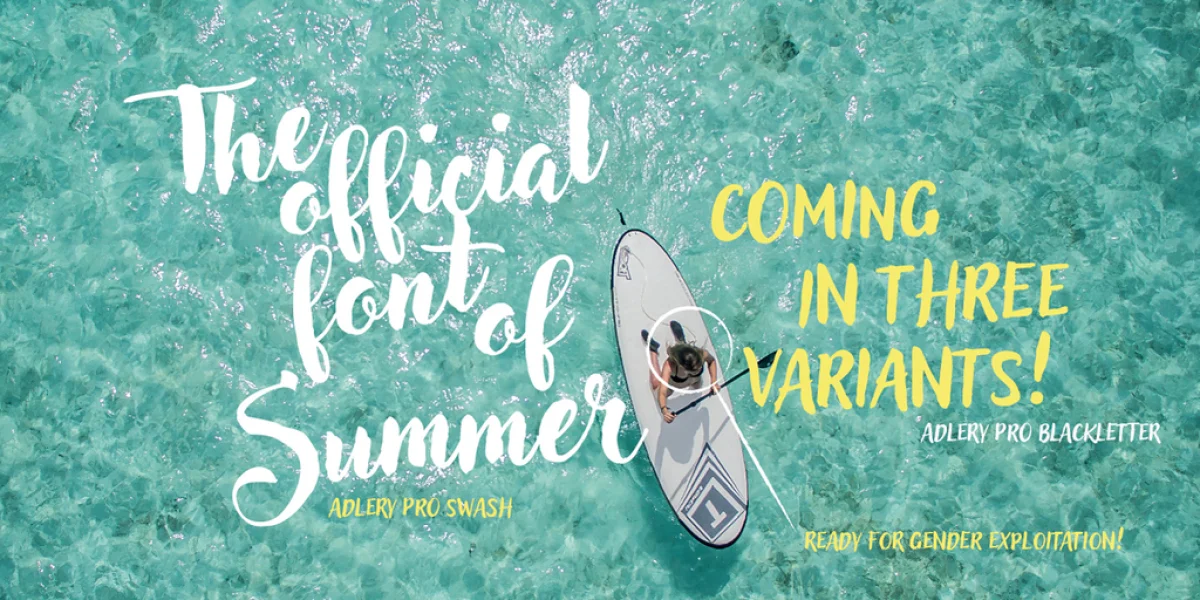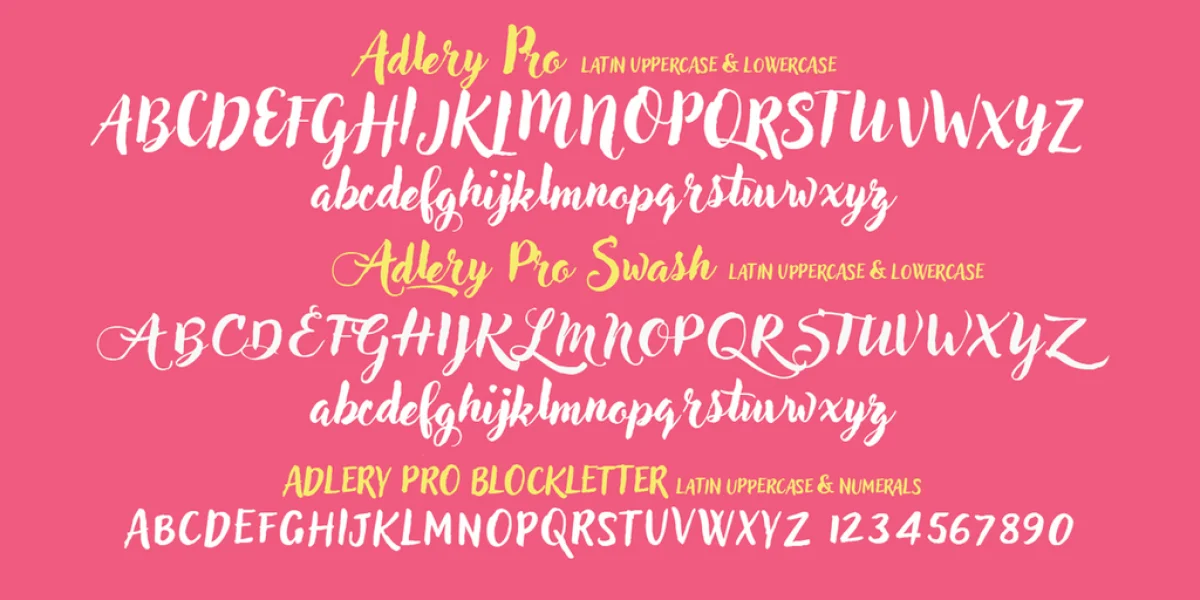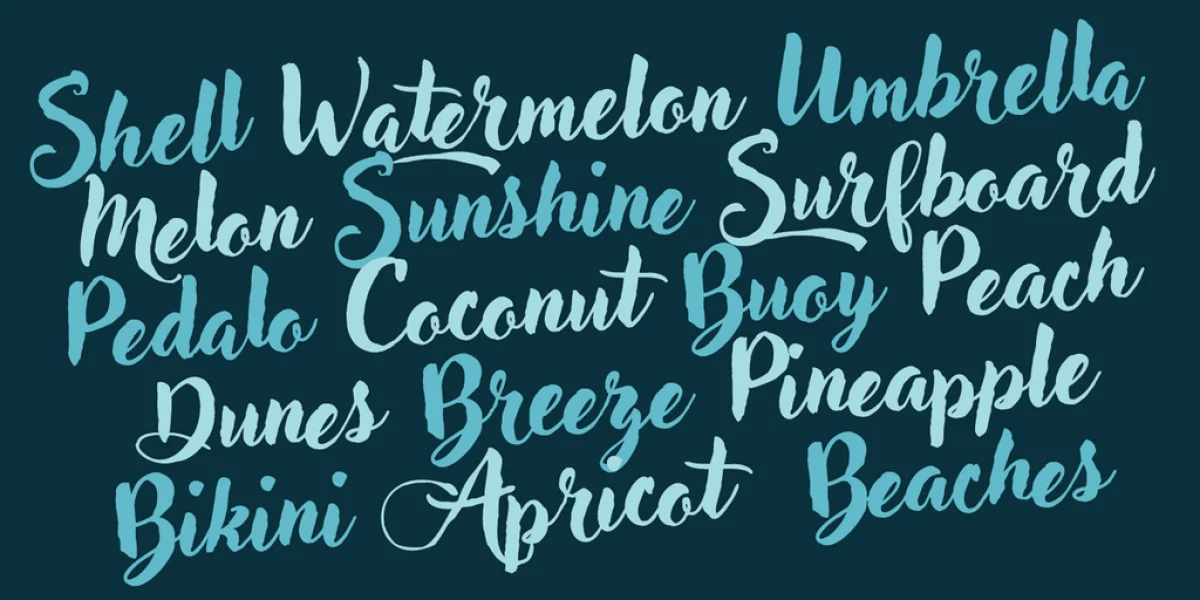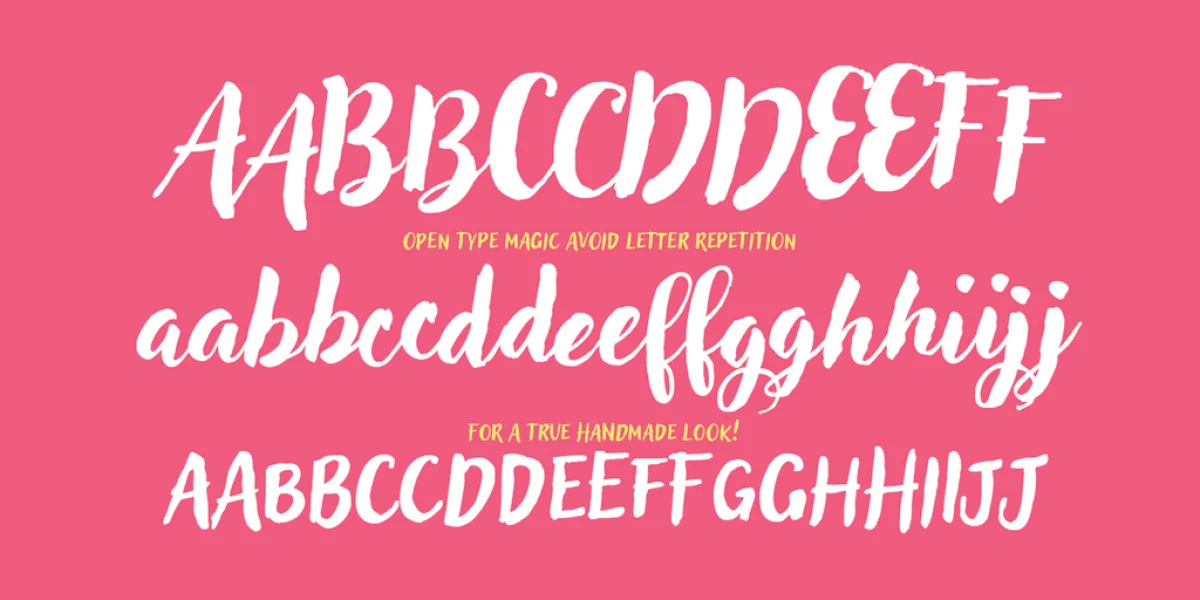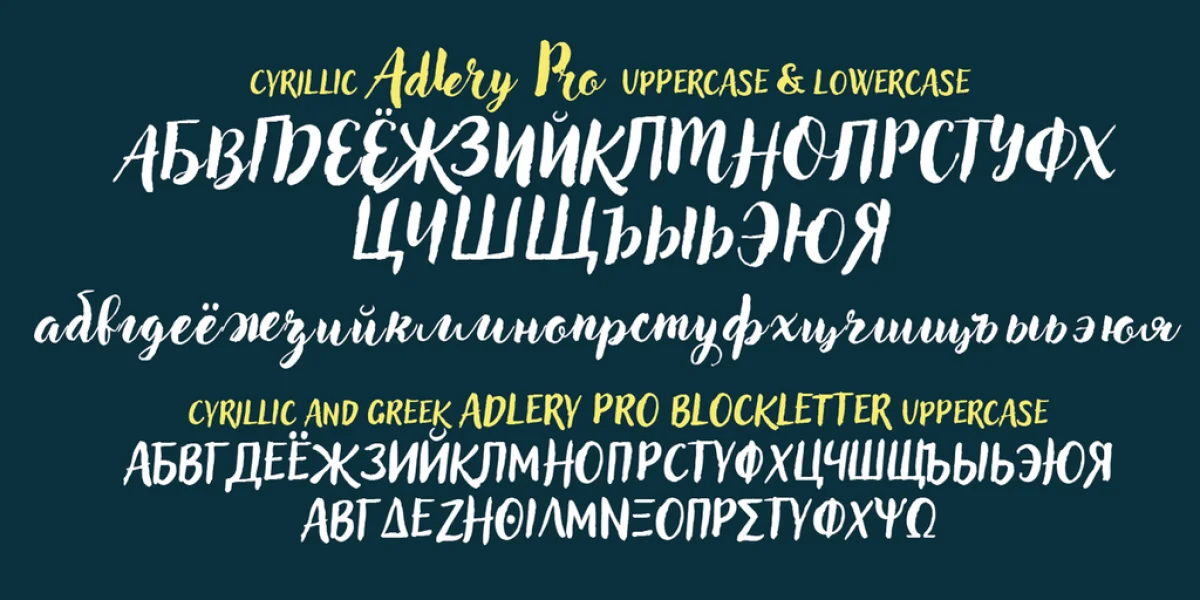
Adlery is a brush typeface designed by Cosimo Lorenzo Pancini for display use. It has a handmade feel and it’s optimized for maximum readability at medium sizes. The typeface comes in three styles: Basic, Swash and Blockletter Uppercase and has a double set of lowercase alphabets that alternate in writing, so that no double letters are the same.